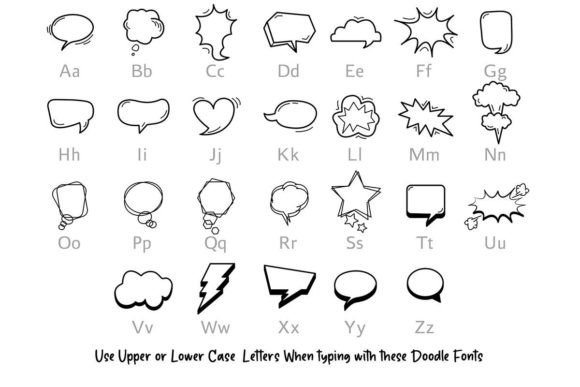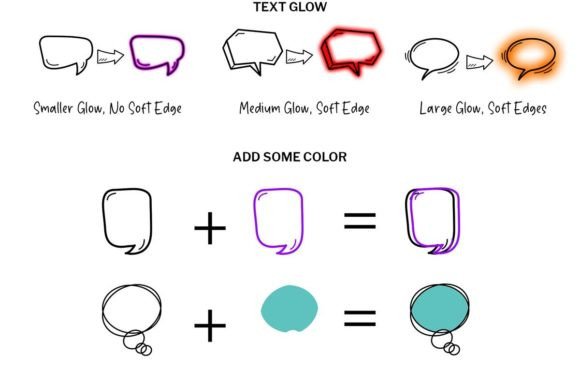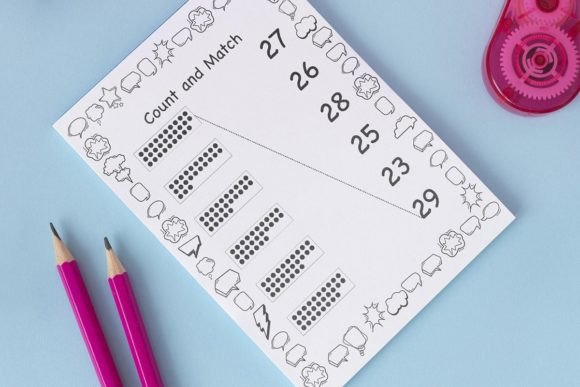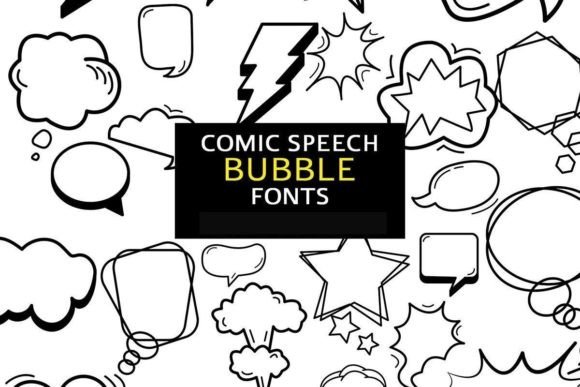
Introducing Comic Speech Bubble Font: Add a Touch of Fun to Your Designs
Are you looking for a font that can add a dash of fun and playfulness to your designs? Look no further than the Comic Speech Bubble Font! This delightful dingbat font is perfect for crafters, designers, and anyone who loves to add a personal touch to their projects. In this article, we’ll explore the features and benefits of the Comic Speech Bubble Font and show you how to make the most of this versatile font.
What is Comic Speech Bubble Font?
Comic Speech Bubble Font is a unique dingbat font that features cute and colorful speech bubbles. The font is designed to be fun and playful, making it perfect for a wide range of projects, from craft designs to planners and diaries. With its versatility and ease of use, you can add a touch of personality to any design.
Key Features of Comic Speech Bubble Font
- Fun and Playful Design: The Comic Speech Bubble Font features colorful and cute speech bubbles that are sure to add a touch of fun to your designs.
- Versatile: This font is perfect for a wide range of projects, including craft designs, planners, diaries, activity books, and more.
- Scalable: The font is scalable, allowing you to use it in various sizes and resolutions.
Uses of Comic Speech Bubble Font
The Comic Speech Bubble Font is perfect for a wide range of projects, including:
- Craft Designs: Add a touch of fun to your craft designs, such as scrapbooking, card making, and journaling.
- Planners and Diaries: Use the font to add colorful and fun speech bubbles to your planners and diaries.
- Activity Books: The font is perfect for activity books, such as coloring books, puzzle books, and more.
- Digital Designs: Use the font in your digital designs, such as social media graphics, blog posts, and more.
Benefits of Using Comic Speech Bubble Font
Using the Comic Speech Bubble Font offers several benefits, including:
- Adds Personality to Your Designs: The font allows you to add a touch of personality and whimsy to your designs.
- Versatile: The font can be used in a wide range of projects, making it a great addition to your font library.
- Time-Saving: The font saves you time and effort, as you can easily add fun and colorful speech bubbles to your designs.
Tips for Using Comic Speech Bubble Font
Here are some tips for using the Comic Speech Bubble Font:
- Experiment with Different Colors: Try out different colors and combinations to add a unique touch to your designs.
- Mix and Match with Other Fonts: Combine the Comic Speech Bubble Font with other fonts to create a unique and interesting design.
- Use it in Combination with Images: Use the font in combination with images to add a fun and playful touch to your designs.
| Font Name | Comic Speech Bubble Font |
| Author | digitalplannerland |
In conclusion, the Comic Speech Bubble Font is a fun and versatile dingbat font that is perfect for crafters, designers, and anyone who loves to add a personal touch to their projects. With its ease of use, scalability, and versatility, this font is a great addition to your font library. Whether you’re working on a craft design, planner, diary, or digital design, the Comic Speech Bubble Font is sure to add a touch of fun and personality to your project.